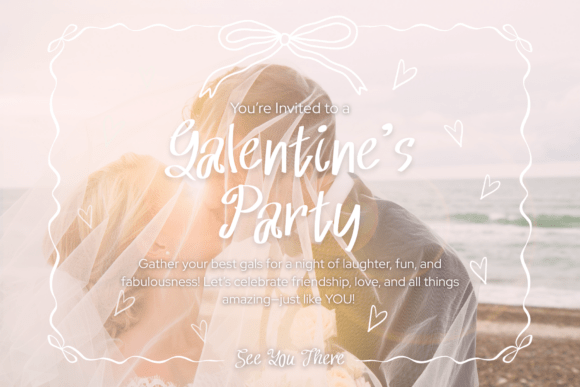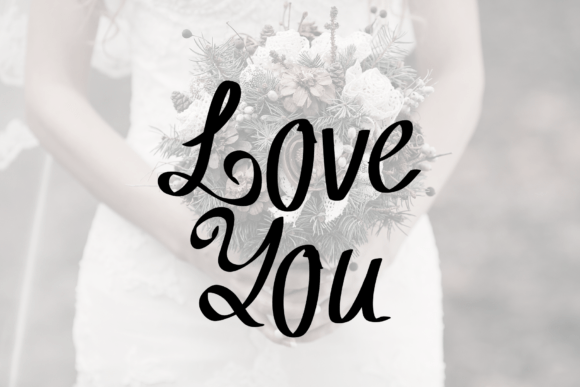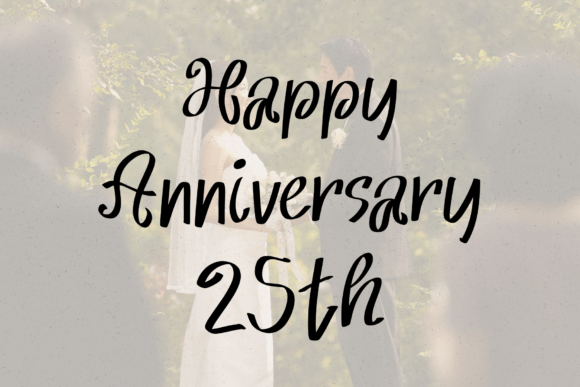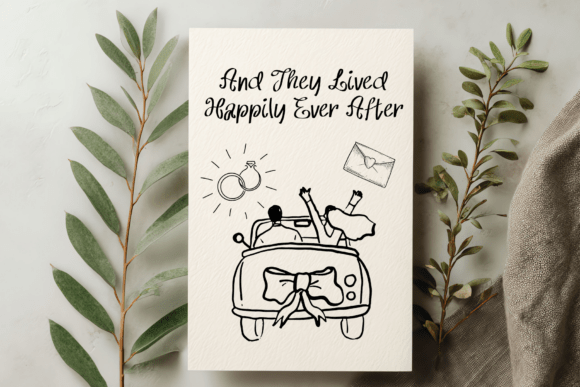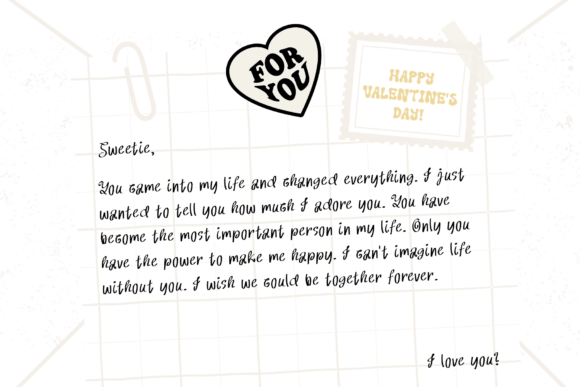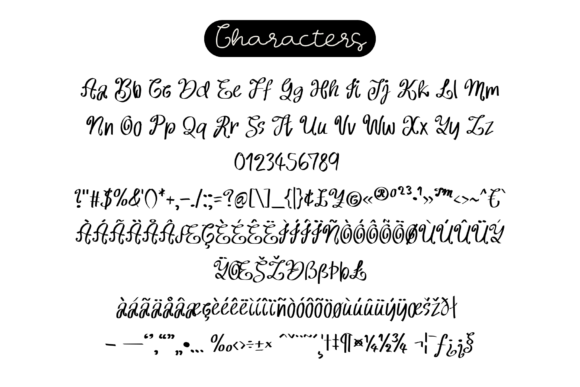
The Amelia Notes Font: A Playful and Authentic Addition to Your Designs
Have you ever been in the middle of a design project, and suddenly, you’re stuck on finding the perfect font? I recall a recent experience where I was working on a client’s branding project, and I just couldn’t find a font that embodied the playful yet professional vibe they were looking for. That’s when I stumbled upon the Amelia Notes font, and it instantly became my go-to choice. In this article, I’ll share my experience with this beautiful handwritten font and explore its features, usage, and alternatives.
An Honest Review of Amelia Notes Font
The Amelia Notes font has quickly become a favorite in my design toolkit, and here’s why:
• Playful and authentic: This font exudes a sense of playfulness and authenticity, making it perfect for a wide range of design projects.
• Highly versatile: From blog posts and logos to invitations and planners, Amelia Notes can be used in various contexts.
• 💫 Elegant and legible: The font’s elegant lines and clear lettering make it easy to read, even in smaller sizes.
However, no font is perfect, and Amelia Notes has a few minor quirks:
• ⚠️ Limited multilingual support: While the font covers the basic Latin character set, it may not support more complex languages or special characters.
• 🤔 Occasional kerning issues: As with any font, you might encounter some kerning issues, especially when using it in combination with other fonts or in justified text.
The Backstory of Amelia Notes Font
Amelia Notes was designed by a talented type designer who aimed to create a font that embodies playfulness and authenticity. The designer’s inspiration came from traditional handwriting and the desire to create a font that feels approachable and friendly. The result is a beautiful, versatile font that can be used in a wide range of design projects.
Font Name Amelia Notes Font
Author Brown Cupple Fonts
What is the Amelia Notes font best suited for? The Amelia Notes font is perfect for a wide range of design projects, including blog posts, logos, branding, ads, invitations, greeting cards, planners, photo albums, decorations, and more.
Is Amelia Notes a multilingual font? While Amelia Notes covers the basic Latin character set, it may not support more complex languages or special characters.